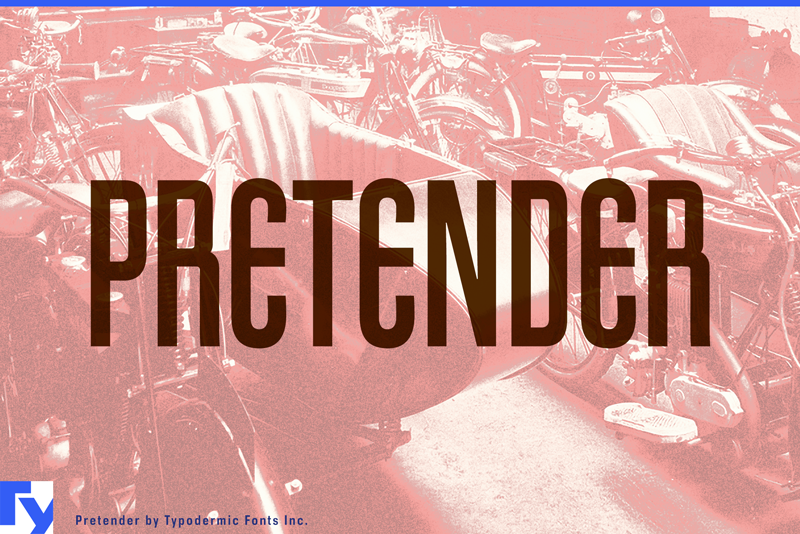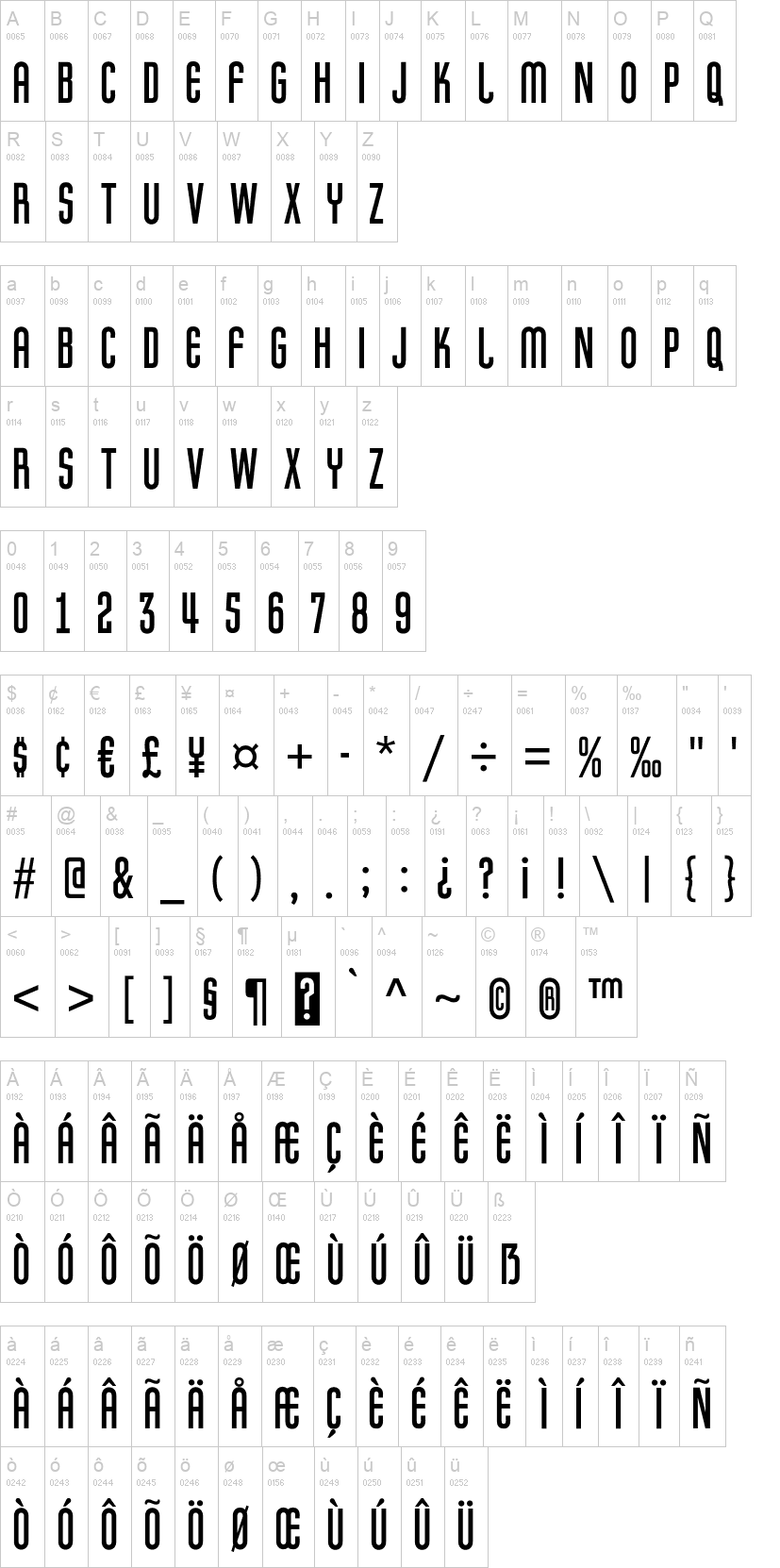
Note of the authorPretender is a slender Art Deco headline typeface inspired by the sheet music cover of Mexicali Rose, an early 20th century waltz ballad. Allow its distinctive condensed letterforms to add suave panache to your message. Most Latin-based European writing systems are supported, including the following languages. Afaan Oromo, Afar, Afrikaans, Albanian, Alsatian, Aromanian, Aymara, Bashkir (Latin), Basque, Belarusian (Latin), Bemba, Bikol, Bosnian, Breton, Cape Verdean, Creole, Catalan, Cebuano, Chamorro, Chavacano, Chichewa, Crimean Tatar (Latin), Croatian, Czech, Danish, Dawan, Dholuo, Dutch, English, Estonian, Faroese, Fijian, Filipino, Finnish, French, Frisian, Friulian, Gagauz (Latin), Galician, Ganda, Genoese, German, Greenlandic, Guadeloupean Creole, Haitian Creole, Hawaiian, Hiligaynon, Hungarian, Icelandic, Ilocano, Indonesian, Irish, Italian, Jamaican, Kaqchikel, Karakalpak (Latin), Kashubian, Kikongo, Kinyarwanda, Kirundi, Kurdish (Latin), Latvian, Lithuanian, Lombard, Low Saxon, Luxembourgish, Maasai, Makhuwa, Malay, Maltese, Māori, Moldovan, Montenegrin, Ndebele, Neapolitan, Norwegian, Novial, Occitan, Ossetian (Latin), Papiamento, Piedmontese, Polish, Portuguese, Quechua, Rarotongan, Romanian, Romansh, Sami, Sango, Saramaccan, Sardinian, Scottish Gaelic, Serbian (Latin), Shona, Sicilian, Silesian, Slovak, Slovenian, Somali, Sorbian, Sotho, Spanish, Swahili, Swazi, Swedish, Tagalog, Tahitian, Tetum, Tongan, Tshiluba, Tsonga, Tswana, Tumbuka, Turkish, Turkmen (Latin), Tuvaluan, Uzbek (Latin), Venetian, Vepsian, Võro, Walloon, Waray-Waray, Wayuu, Welsh, Wolof, Xhosa, Yapese, Zapotec Zulu and Zuni.